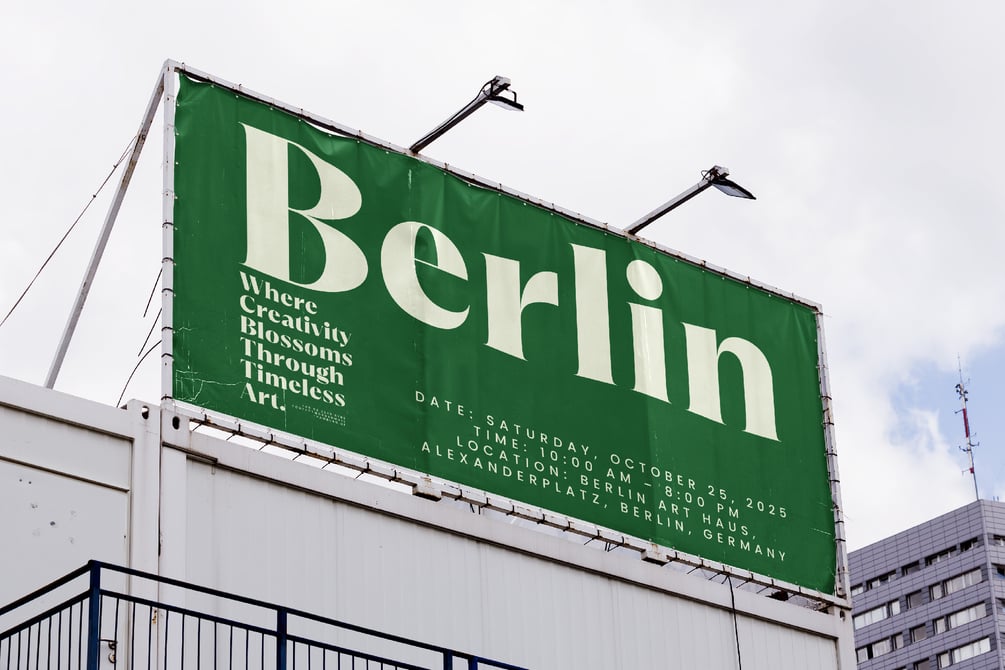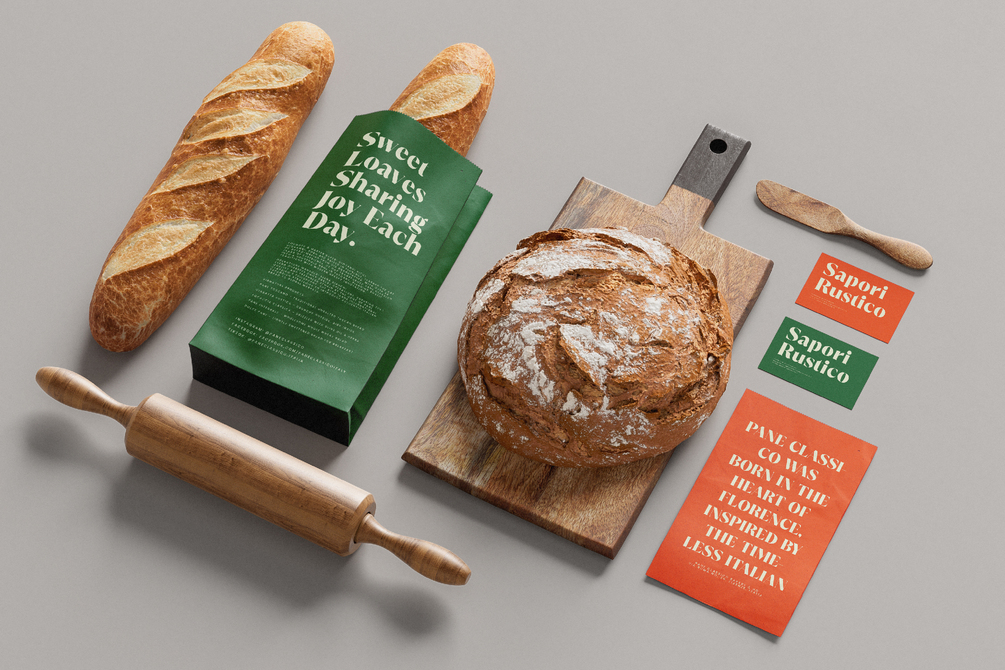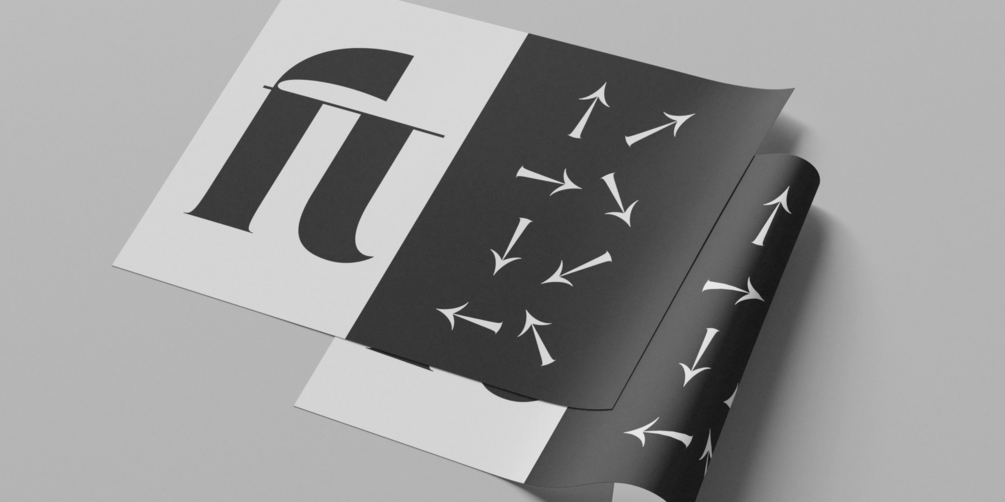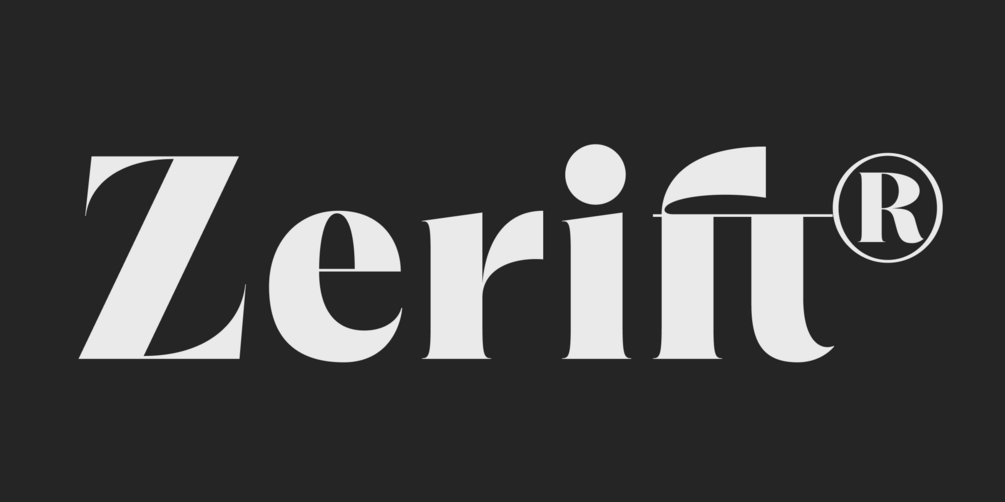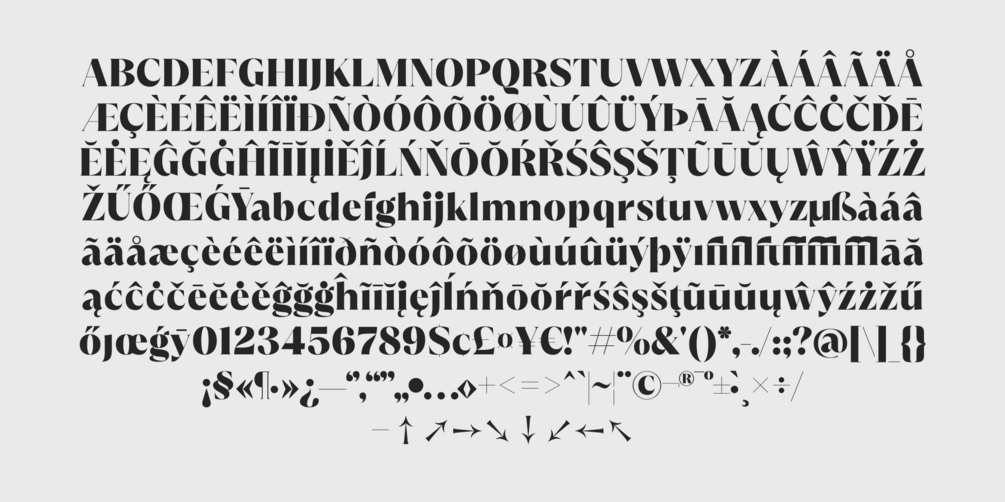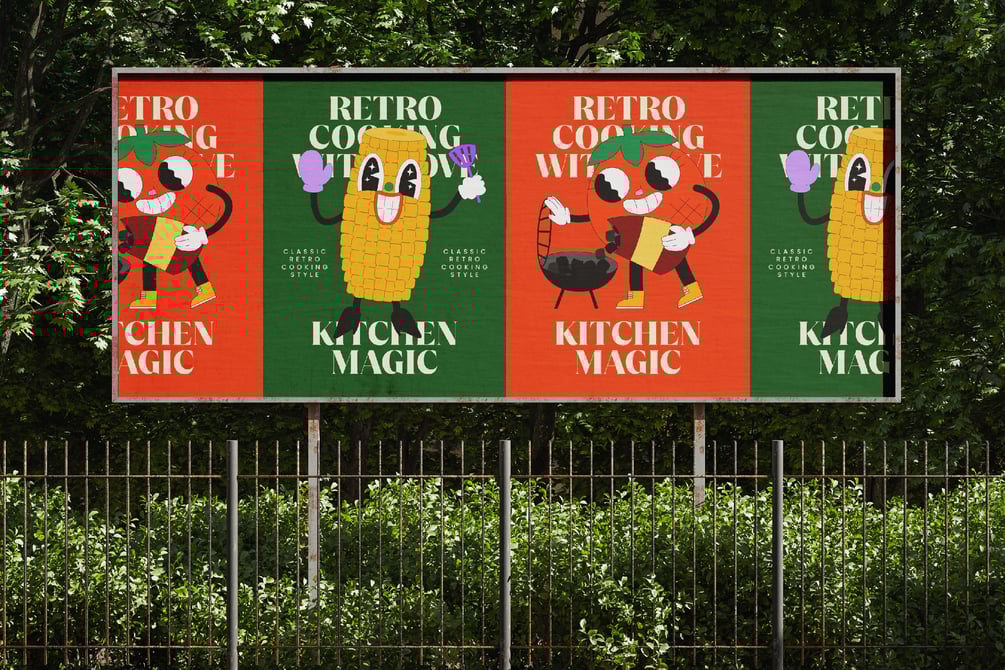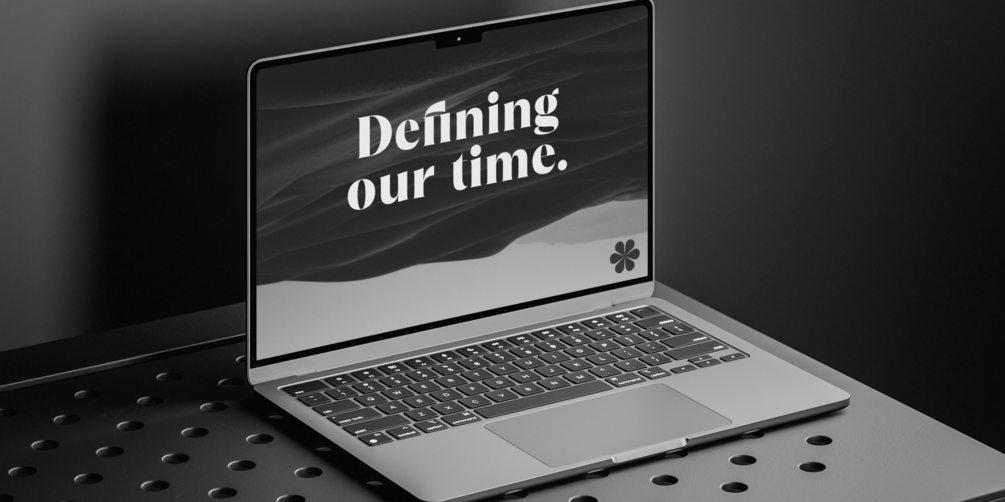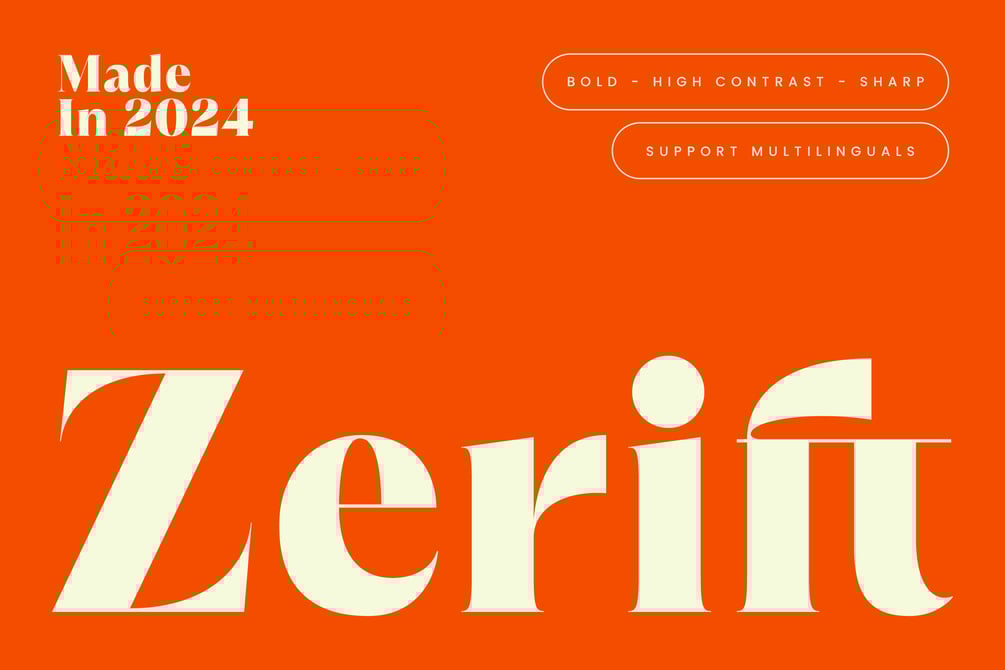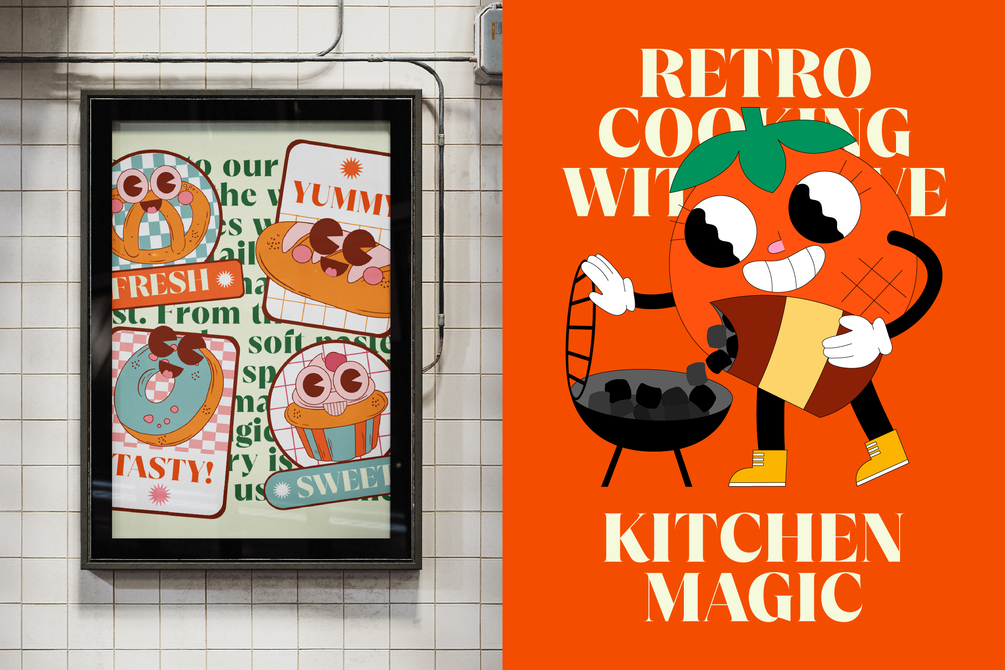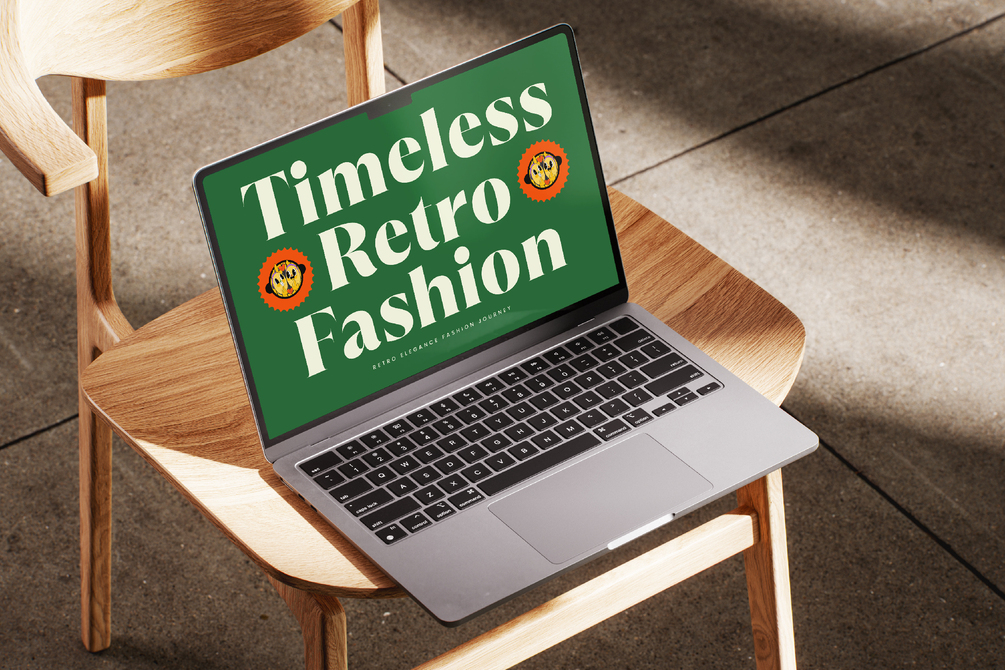
Zerift - Bold Serif Display
Zerift stands at the intersection of timeless elegance and contemporary edge. This masterfully crafted typeface commands attention through its dramatic interplay of bold strokes and delicate details, making a powerful statement in luxury and high-end applications. Like a perfectly tailored garment, each character balances strength with refinement, tradition with innovation. Its sharp, precise details and sophisticated proportions speak the language of modern luxury while honoring classical typographic heritage. Perfect for brands that dare to make their mark with understated confidence and uncompromising quality.